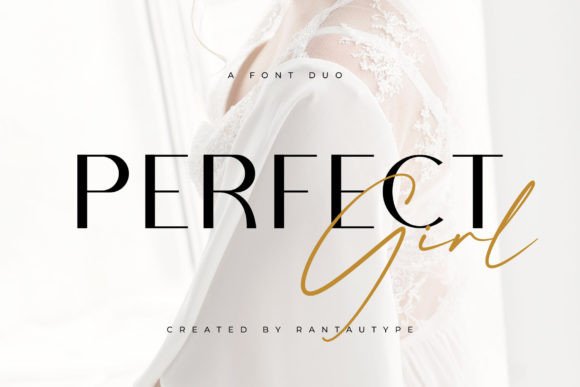
Introducing the captivating and emotion-evoking Perfect Girl Font! Designed by RantauType, this font is the perfect choice for those seeking a touch of elegance and sophistication in their creative projects. With its stunning serif and script variations, Perfect Girl Font offers a world of possibilities to enhance your designs and leave a lasting impression.
When it comes to versatility, Perfect Girl Font knows no bounds. Whether you're designing a gift card, crafting a heartfelt message, or creating a mesmerizing logo, this font effortlessly adapts to any style or theme. It's like having a magical tool at your disposal, ready to breathe life into your ideas and take them to new heights.
The serif variation of Perfect Girl Font exudes a timeless charm and lends a sense of tradition and authority to your designs. Its clean lines and elegant curves make it ideal for formal invitations, luxurious branding, or adding a touch of refinement to your website. Let your words speak with poise and grace, leaving a lasting impression on your audience.
On the other hand, the script variation of Perfect Girl Font brings a sense of whimsy and playfulness to your creations. Its flowing, handwritten style adds a personal touch to any project, making it perfect for greeting cards, social media graphics, or anything that requires a dash of charm. Watch as your words dance across the page, captivating hearts and minds with every stroke.
But Perfect Girl Font is more than just a pretty face. It's a powerful tool that helps you convey emotions and capture attention effortlessly. Imagine the joy and excitement of your loved ones when they receive a gift card adorned with this font, instantly conveying your heartfelt message in the most beautiful way possible. Make every occasion a memorable one with Perfect Girl Font.
Don't settle for ordinary. Let Perfect Girl Font be the secret ingredient that elevates your designs and sets them apart from the rest. With its rich collection of characters, ligatures, and alternates, this font opens up a world of creative possibilities. From elegant wedding invitations to captivating advertisements, Perfect Girl Font is your trusted companion on your creative journey.